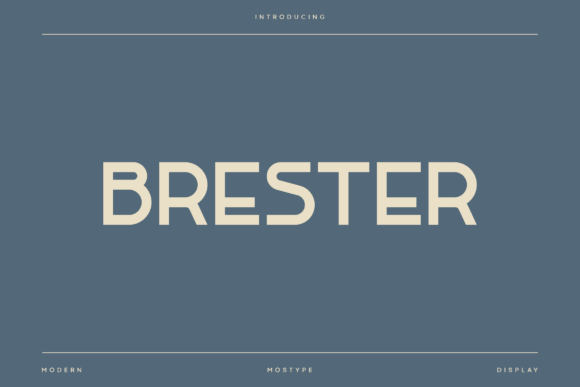
I still remember the frustration of working on a project, hours spent crafting the perfect design, only to realize that the font I chose was completely off. It was like trying to put a square peg into a round hole – it just didn’t fit. My client wanted a polished and contemporary look, but the font I had chosen was, well, a bit of a mess. That’s when I discovered **Brester**, a sleek and adaptable typeface that has since become my go-to for any design project that needs a touch of elegance.
A Personal Review of Brester
So, what makes **Brester** so special? Here are a few things I love about this font:
- ✨ Excellent readability, even at small sizes
- ✅ Sophisticated appearance that adds a touch of elegance to any design
- 💡 Adaptable to a wide range of design projects, from logos to social media posts
- 🎨 A clean and simple design that pairs well with a variety of graphics and images
Of course, no font is perfect, and **Brester** does have a few small quirks:
- 🤔 Some users may find the font a bit too minimalist for certain design projects
- ⚠️ The font may not be suitable for body text, as it’s best used for titles and headings
- Take advantage of OpenType features, such as glyphs and stylistic alternates, to add more variety to your typography
The Story Behind Brester
**Brester** was designed by a team of typographers who wanted to create a font that was both stylish and adaptable. The font was inspired by the clean lines and simple shapes of modern architecture, and was designed to be perfect for titles, headings, and logos. The team behind **Brester** is passionate about typography and is committed to creating high-quality fonts that meet the needs of designers and crafters.
| Font Name | Brester Font |
| Author | adabsubandi |
| What is **Brester** best used for? | **Brester** is best used for titles, headings, logos, and other design projects that require a polished and contemporary look. |
| Is **Brester** suitable for body text? | No, **Brester** is best used for titles and headings, and may not be suitable for body text. |
| Is **Brester** available in different weights and styles? | Yes, **Brester** is available in a range of weights and styles, making it a versatile font that can be used for a variety of design projects. |